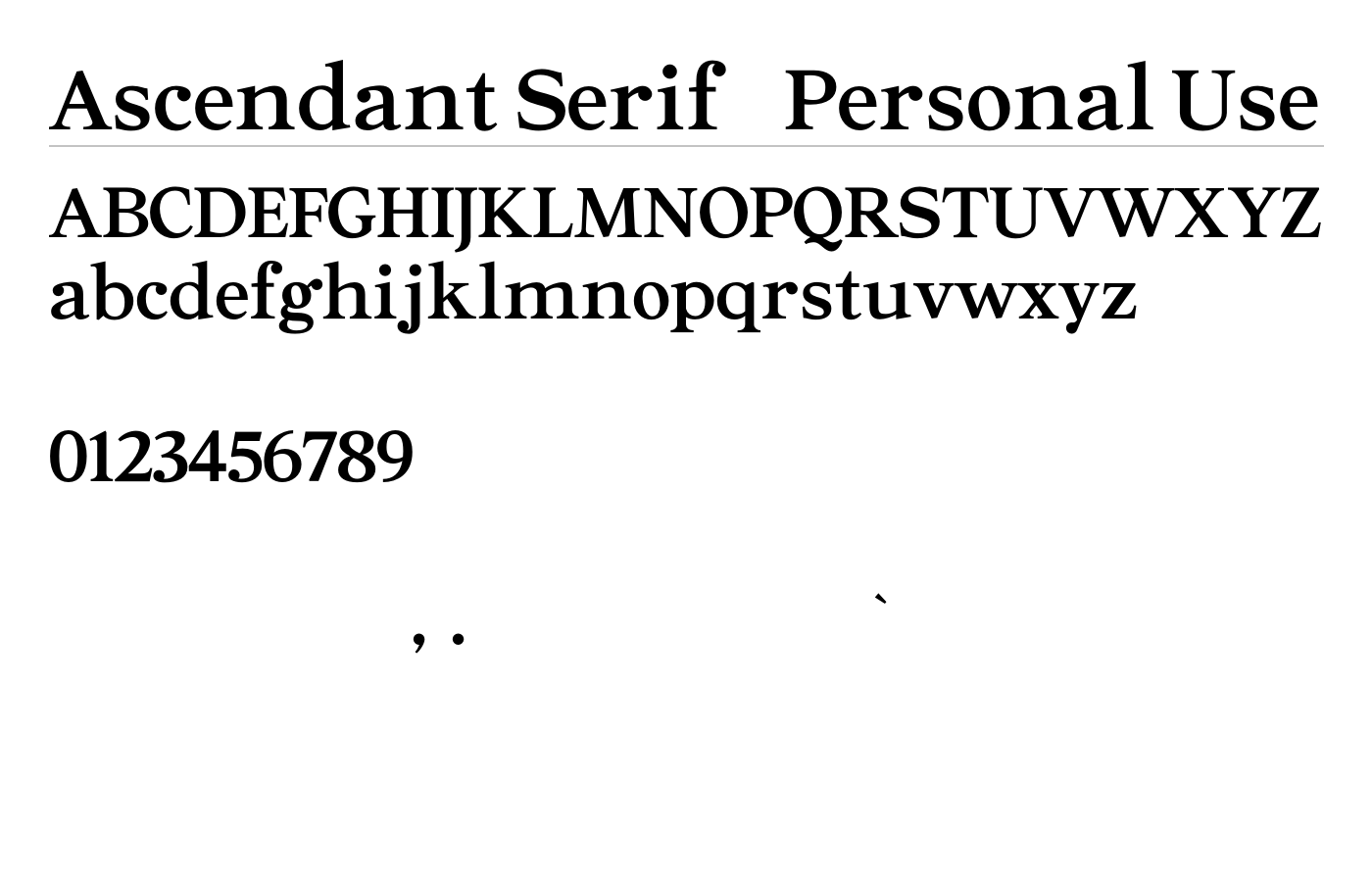
Ascendant Serif is a classic serif font with a strong, elegant presence characterized by moderate stroke contrast and refined bracketed serifs. Its clear, legible letterforms and balanced proportions make it ideal for sophisticated editorial design, branding, and formal communication. This timeless font conveys a sense of tradition and professionalism, perfect for projects seeking a polished, authoritative look.
Ascendant Serif - Personal Use Font
About Ascendant Serif - Personal Use Font